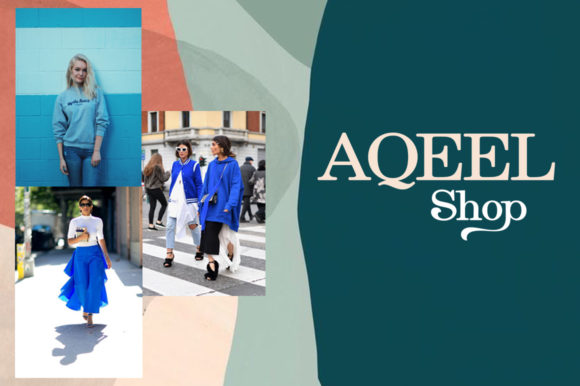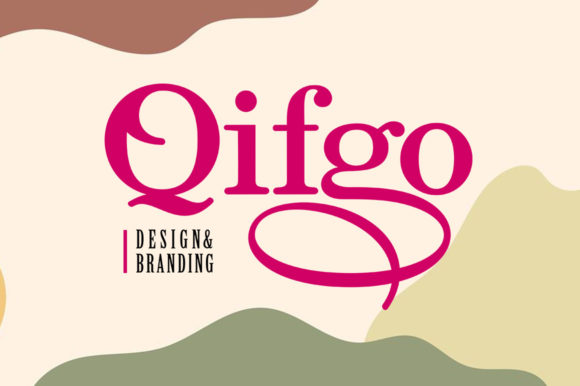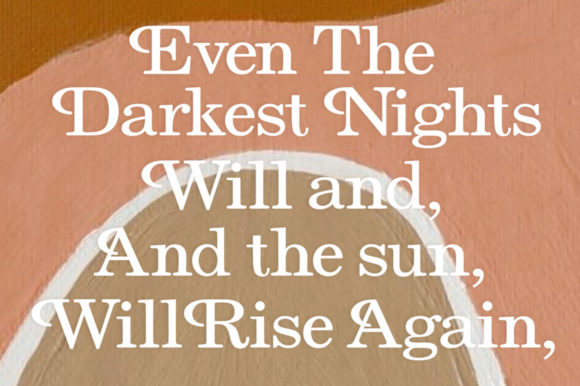
Introduction to Molin Font
Do you ever have one of those moments where you’re brainstorming a creative project and everything just clicks? The idea is born, and you can envision the perfect design to bring it to life. For designers, those moments are precious, and having the right design resource can make all the difference. That’s where the Molin Font comes in – a beautiful serif font that exudes an authentic, high-quality feel that’s sure to elevate any project.
As a valuable addition to any designer’s toolkit, Molin Font offers a bold charm that’s hard to resist. With its transparent background and free download option, you can experiment with this stunning font in your next creative project without any hassle. Whether you’re working on a branding campaign, a website, or a print design, Molin Font is sure to inspire and leave a lasting impression.
- High-quality design resource suitable for various creative projects
- Includes a range of glyphs and characters, ideal for use in logos, graphics, and typography
- Designed with a modern and elegant aesthetic, perfect for contemporary design projects
Honest Review: Molin Font
I recently stumbled upon the Molin Font, a free download that caught my attention. As a designer, I appreciate discovering high quality design resources that can elevate my creative projects.
- What works well: ✨ The Molin Font features a unique, modern design with a transparent background, making it perfect for overlays, icons, and graphics.
- What works well: ✨ The font is highly customizable, allowing users to adjust the style and size to fit their specific needs.
- ⚠️ The Molin Font may not be suitable for body text, as it can be difficult to read at smaller font sizes.
Overall, the Molin Font is a solid addition to any designer’s toolkit. Its modern design and high quality make it a great choice for creative projects. While it may have some limitations, the benefits far outweigh the drawbacks.
Molin Font
Common Use Cases for Molin Font
Molin Font is perfect for creating logos, graphics, and illustrations for a variety of creative projects. Its high-quality design resource makes it a valuable addition to any design arsenal.